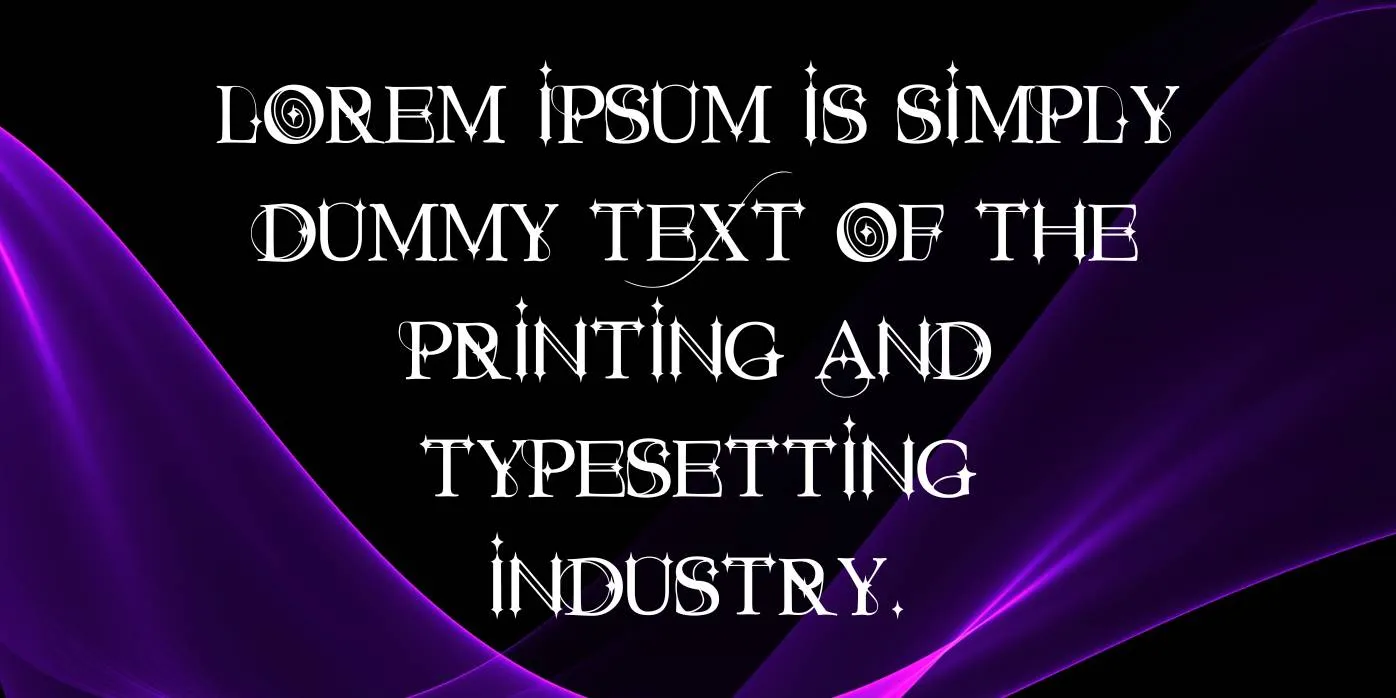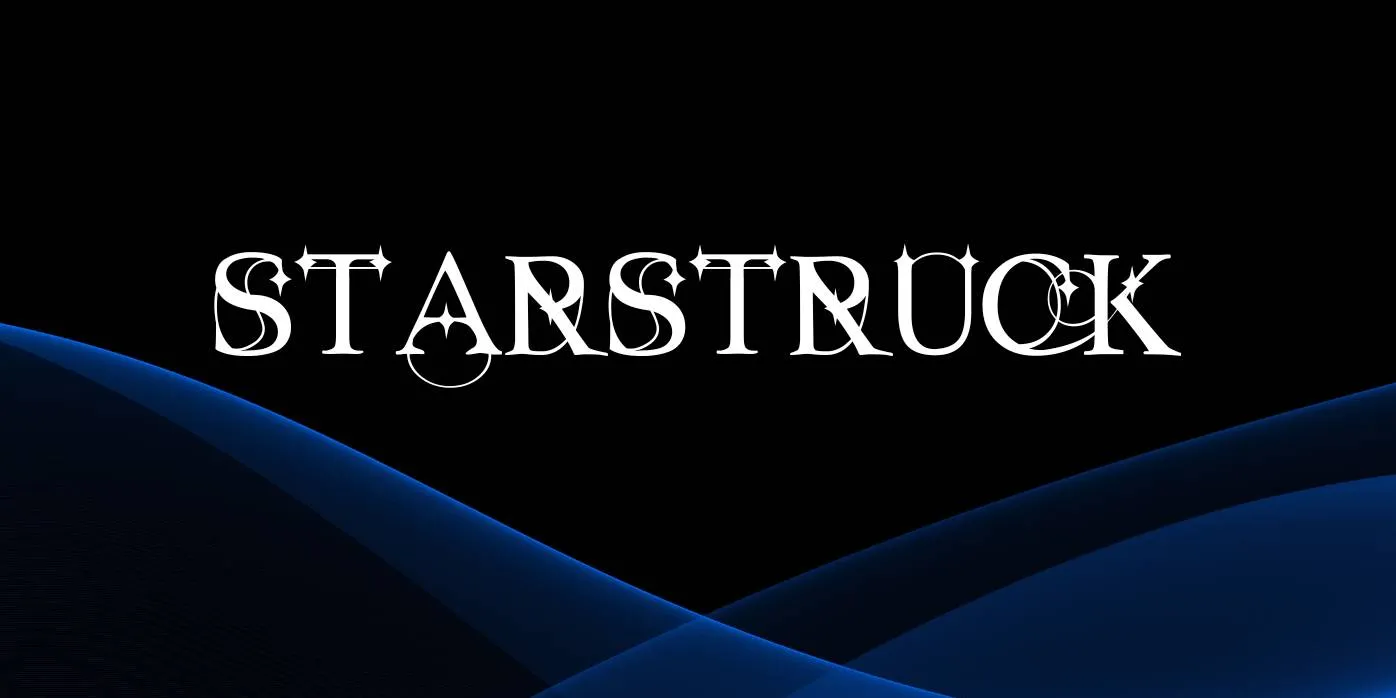
Starstruck Font
Let’s discuss an amazing font Starstruck. It is a very decorative font. Its style and features are very beautiful. It was designed by Tobias Fere Jones.
An online generator tool is also available for this font to make changes in text online without downloading the font. Its pitch is not monospaced and contains upright postures of characters. It contains 76 characters 84 glyphs and 1000 units per Em. In this font, embedding rights are restricted.
The weight and width of the font are medium(normal). You can make so many projects using this font. Usage You can make amazing and attractive projects using this font. Different types of art designs can be made using this font.
Many branding companies also use this font for their projects. To make attractive headlines you can use it. It can make business cards using this font. Attractive book covers, and product packing, can also be made by using it.
You can also design products and social media posts. Different types of quotes, Banners, and posters can be made using this font. This font can be utilized in your assignments and make titles for different projects. It can be used for print and digital media.
Why is Starstruck font so popular? It is a very popular font because it has so many different glyphs and can be used for any kind of project from a website to any display project. Is Starstruck Font a free font? You can make personal projects free using this font but if you want to make commercial projects you must contact its owner to buy it.
Is Starstruck font good to use? Yes, you can use this font to make so many projects. It is good for making different types of headlines and creating short blocks of text. What file format is supported by Starstruck font?